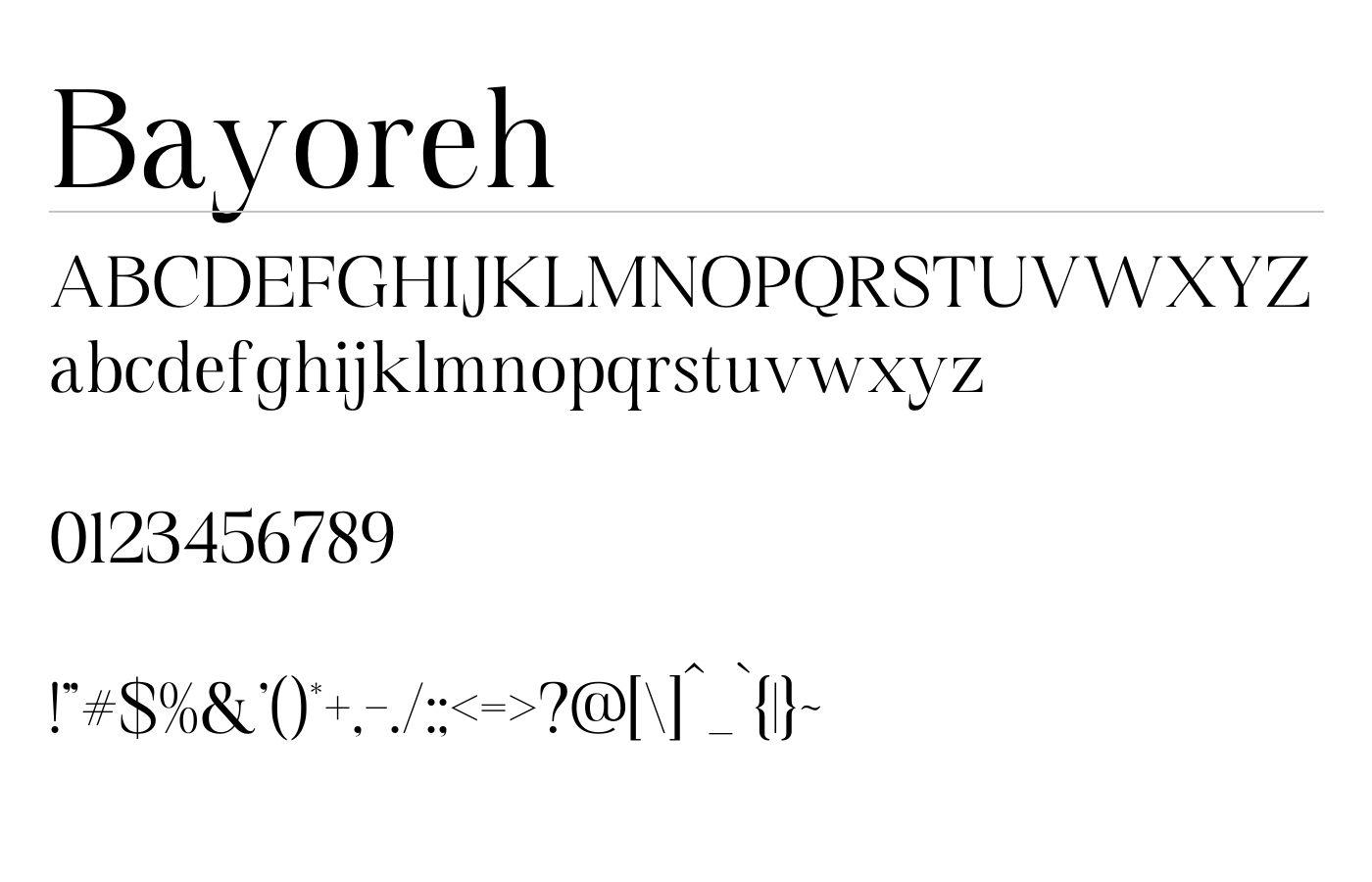
Bayoreh is an elegant serif typeface characterized by its high contrast between thick and thin strokes and slender, bracketed serifs. Its refined, classic appearance and delicate details make it ideal for sophisticated editorial layouts, luxury branding, and formal invitations, bringing a sense of timeless style and graceful readability to any project.
Bayoreh Font
About Bayoreh Font